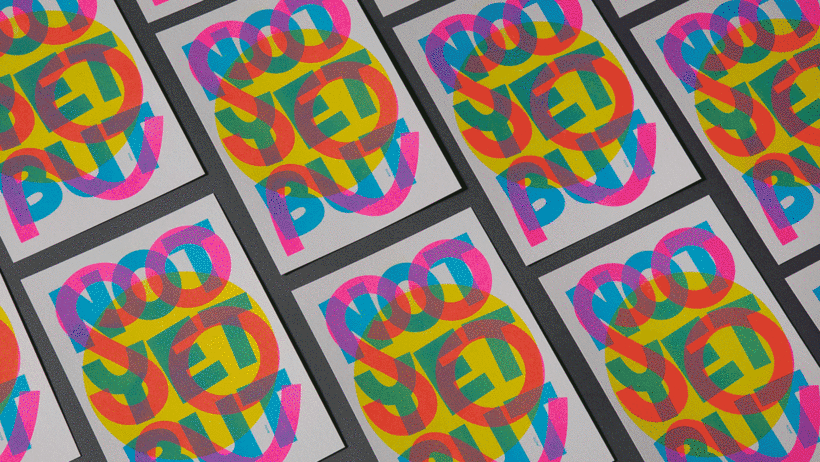
Typographic works by Dani Molyneux.
1. Basics of Typography from A to Z, a course by Álvaro Franca
The right typography for a brand should reflect its identity, customers, and tone. To get you started in this discipline, we turn to Álvaro Franca (@alvaroefe), a designer in studio Vasava and co-founder of Naipe Foundry, where he collaborates with clients like TV Globo and Sony Music.
In this course, Álvaro explains how to choose the right typography for big and small projects, by introducing everything from logos to magazine design. Discover the history of typography, learn to understand fonts and their families, and learn how to achieve a coherent look in your designs. For your final piece, you’ll create a magazine spread that highlights your font.
2. Introduction to Designing with Letters, a course by Abraham Lule
Abraham Lule (@abrahamlule) is a NYC-based graphic designer originally from Mexico. His professional work is specialized in typography for brands, and he has collaborated with Facebook, Capitol Records, and more.
In this course on designing with letters, Abraham explains how to integrate illustration and typography techniques to produce overall pieces that capture the personality of a brand or concept. You’ll create a typographic composition using a variety of fonts that complement each other, ready to share on social media.
3. Playful Typography for Powerful Communication in Illustrator, a course by Dani Molyneux
After working for creative agencies across the UK, Dani Molyneux (@dani_molyneux_) started her brand Dotto with the aim of making meaningful artwork that fuses playful use of color and form with powerful messages.
In this course, she teaches you how to design bold, colorful typography. At the end, you’ll create a poster featuring a message that means something to you, and learn how to get it printed or share it digitally.
4. Typography for Designers: Create Fonts for the Marketplace, a course by Thomas Jockin
One way to strengthen your typographic designs is through developing a strong research method that ensures every decision you make is clear and informed. Typeface designer Thomas Jockin (@thomas_jockin) has worked with clients including Google and Footlocker. He’s also the founder of TypeThursday, a global community of people passionate about letterforms.
In his course, Thomas shares an effective research method to take on font design projects. You’ll learn how to design fonts that connect with emotion while performing strongly in the competitive marketplace. For your final project, you’ll design a unique typeface using these research methods, ready to be shared and sold.
Courses on experimental typography and effects
5. Digital Lettering Inspired by Natural Patterns, a course by Adrià Molins
Nature is often called the original designer, so why not draw inspiration from it to create surprising and organic forms? Graphic designer and art director Adrià Molins (@adriamolins), digitally replicates natural patterns in his typefaces, and here teaches you to transmit messages while stirring the soul.
His course on creating nature-inspired lettering with digital tools begins with a brief introduction to natural patterns and how they can be seen in various artforms. Then, you’ll discover how to use three effects that Adrià has developed, polishing the designs with your own personal touch. You’ll end up with a set of capital letters that could head an article for a magazine.
6. Experimental Typographic Design with Processing, a course by BlueTypo
Processing is an easy-to-use, open-source programming language based on Java, which is ideal for making interactive digital design projects. Manolo Guerrero, from the design studio and creative consultancy BlueTypo (@bluetypo), is a graphic designer who combines programming and design skills to create award-winning experimental compositions.
In this course, you’ll learn how to use Processing to create dynamic typography for web, posters, and more. Your final project will be the creation of a typographic specimen that shows off the experimental font you developed.